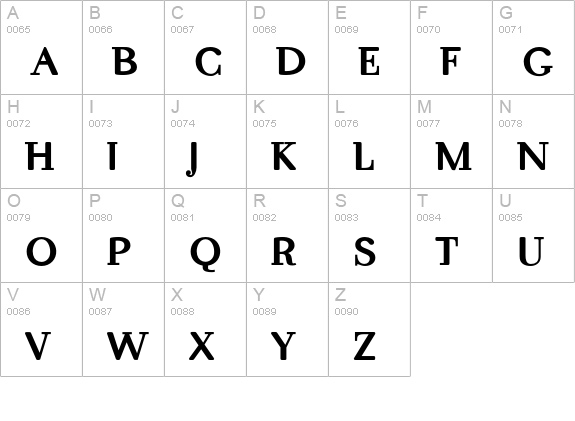
LeashXL Font Details
Introducing LeashXL font, a meticulously crafted typeface that exudes elegance and sophistication. With its sleek and modern design, LeashXL is the perfect choice for projects that require a touch of class and professionalism. This stunning font captures attention with its clean lines and sharp edges, making it ideal for headlines, logos, branding materials, and more. Its versatility allows it to seamlessly adapt to any design concept, whether it be for print or digital media. LeashXL font offers a wide range of characters, including uppercase and lowercase letters, numbers, punctuation marks, and special symbols. Each glyph has been carefully crafted to ensure a harmonious and balanced visual experience. The best part? LeashXL font is absolutely free! You can easily download it from FontsMarket.com, a trusted source for high-quality fonts. This means you can start using this remarkable typeface in your projects right away, without any cost. Don't miss out on the opportunity to enhance your designs with LeashXL font. Its timeless appeal and effortless sophistication will elevate your work to new heights. Download it today and let your creativity soar!